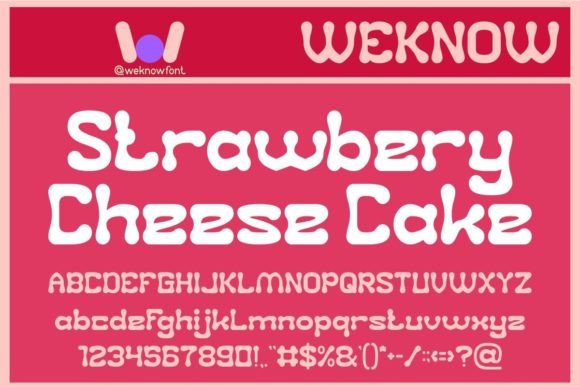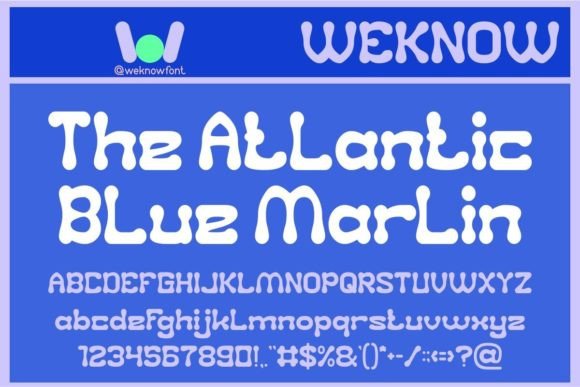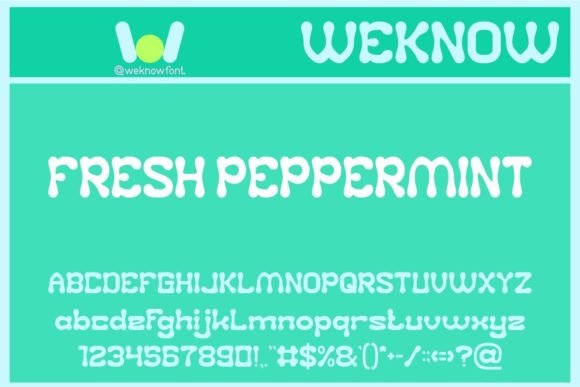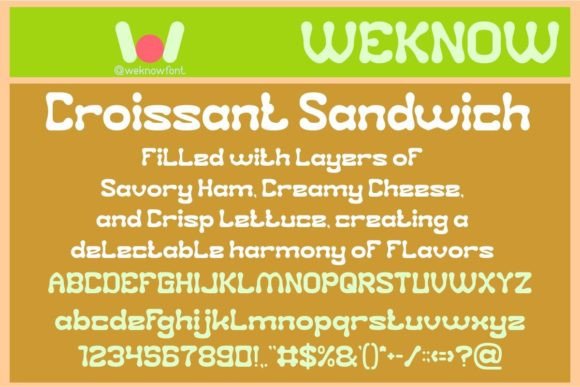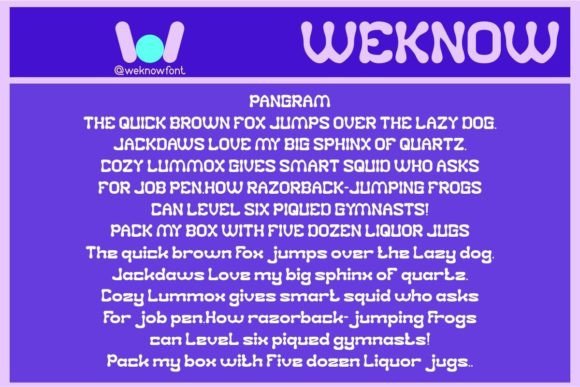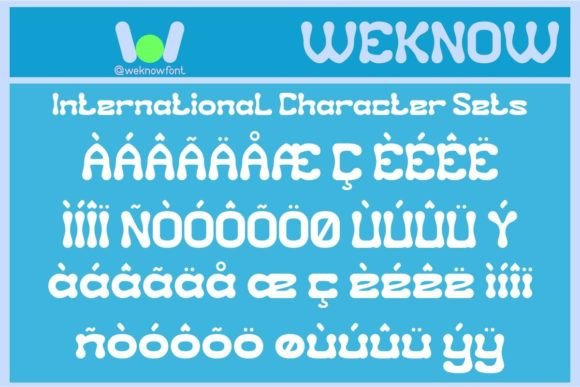
Cake and Bakery Font: The Sweetest Addition to Your Design Collection
Are you tired of using the same old fonts for your designs? Do you want to add a touch of whimsy and sophistication to your creations? Look no further than the Cake and Bakery font, a delightful, smooth, and fancy display font that’s sure to sweeten up your designs.
A Font that’s as Sweet as it is Versatile
Cake and Bakery is a loveable font that’s perfect for crafting engaging logos, compelling headlines, and striking brand identities. Its playful charm and smooth curves make it a great fit for a wide range of design projects, from apparel and music to gaming and beyond. Whether you’re a designer, craftsperson, or simply a creative enthusiast, this font is sure to become your go-to choice for adding a dash of fun and sophistication to your work.
One of the best things about Cake and Bakery is its versatility. This font can be used for a wide range of design projects, including:
- Posters and Flyers: Add a touch of whimsy to your posters and flyers with Cake and Bakery’s playful curves and smooth lines.
- Magazines and Books: Use Cake and Bakery to add a dash of sophistication to your magazine and book designs.
- Apparel: Create eye-catching apparel designs with Cake and Bakery’s bold and playful font.
- Music and Gaming: Use Cake and Bakery to create engaging logos and branding for music and gaming projects.
- Comics and Cartoons: Add a touch of whimsy to your comic and cartoon projects with Cake and Bakery’s playful font.
Why Choose Cake and Bakery?
So why choose Cake and Bakery over other fonts? Here are just a few reasons:
- Unique and Eye-Catching: Cake and Bakery is a unique and eye-catching font that’s sure to grab attention.
- Versatile: This font can be used for a wide range of design projects, making it a great addition to your font collection.
- Easy to Read: Despite its playful curves, Cake and Bakery is easy to read, making it perfect for use in headlines and titles.
- High-Quality: Cake and Bakery is a high-quality font that’s designed to look great in any design project.
Using Cake and Bakery for Your Designs
Using Cake and Bakery for your designs is easy. Here are a few tips to get you started:
- Pair it with Other Fonts: Pair Cake and Bakery with other fonts to create a unique and eye-catching design.
- Use it for Headlines: Use Cake and Bakery for headlines and titles to add a touch of whimsy and sophistication to your design.
In conclusion, Cake and Bakery is a delightful, smooth, and fancy display font that’s perfect for adding a touch of whimsy and sophistication to your designs. Its versatility, unique curves, and playful charm make it a great fit for a wide range of design projects, from apparel and music to gaming and beyond. Whether you’re a designer, craftsperson, or simply a creative enthusiast, Cake and Bakery is sure to become your go-to choice for creating engaging logos, compelling headlines, and striking brand identities.